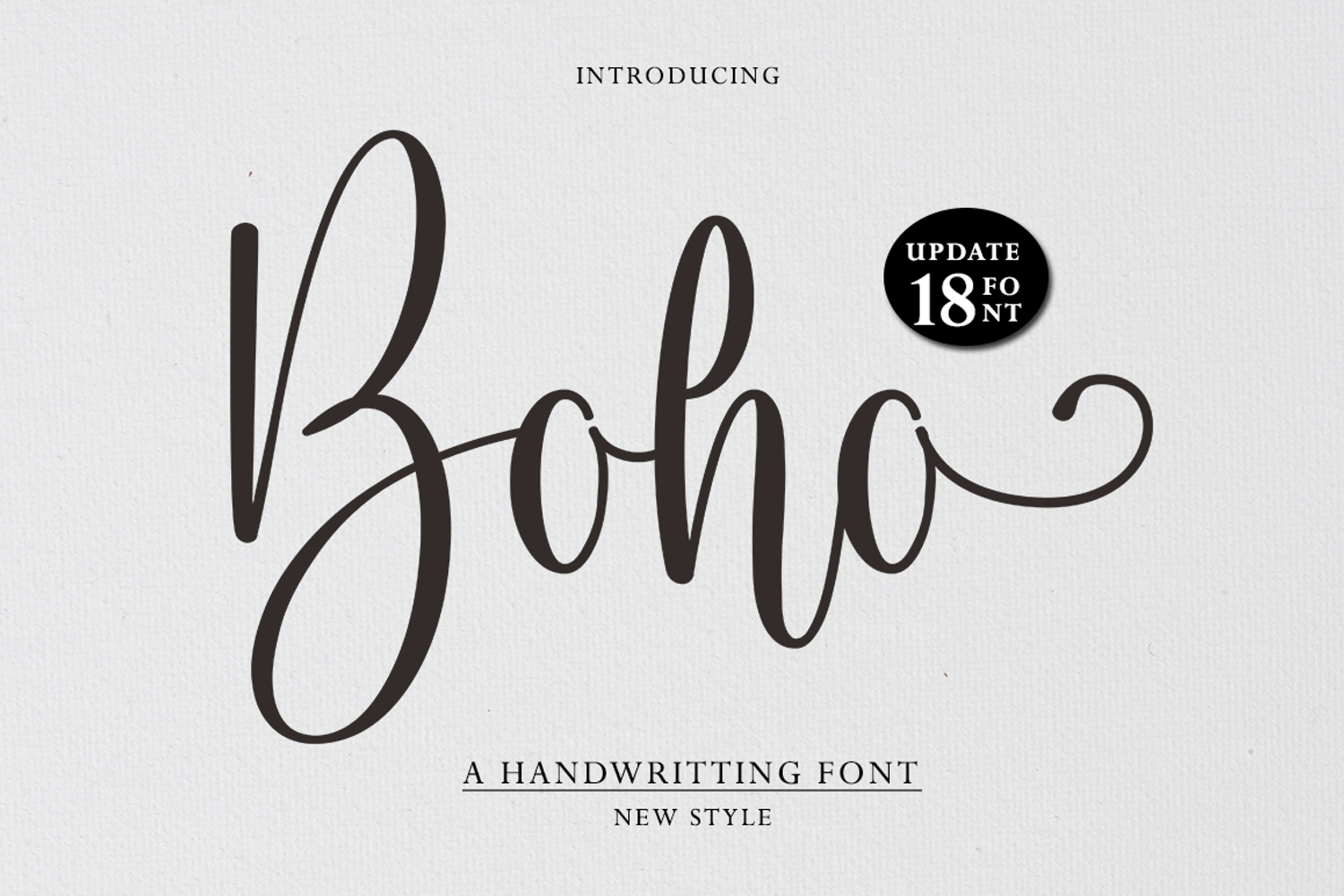
Boho Update 18 Font
Boho is a stylish and incredibly elegant handwritten font. It looks stunning on wedding invitations, thank you cards, quotes, greeting cards, logos, business cards, and every other design which needs a handwritten touch.